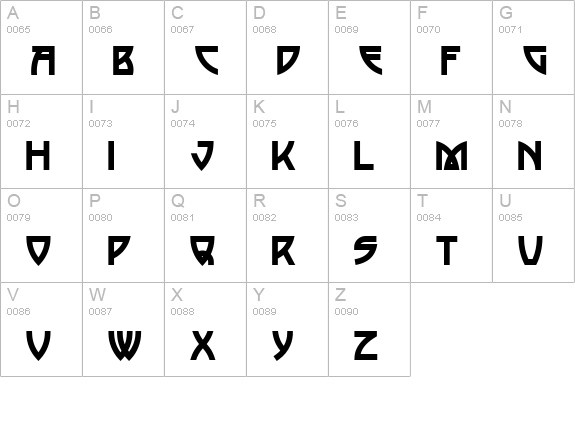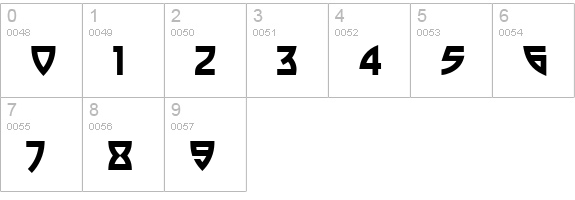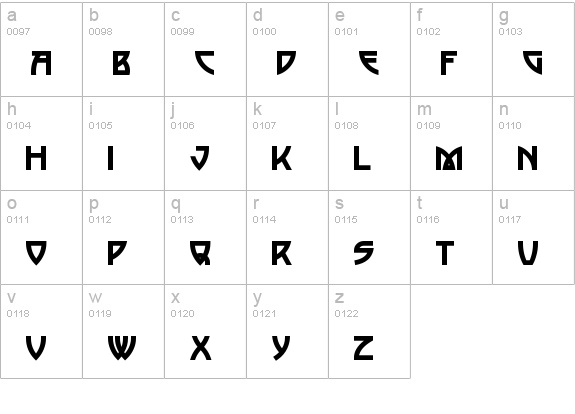
Postmodern One Font Details
Postmodern One font is a unique and innovative typeface that embodies the essence of postmodern design principles. With its bold and striking letterforms, this font is sure to make a statement in any creative project. The juxtaposition of different styles and elements creates a dynamic and visually engaging look that is perfect for modern graphic design. What sets Postmodern One font apart is its versatility – it can be used for a wide range of design projects, from branding and advertising to editorial and web design. Whether you're looking to add a touch of sophistication to your next project or make a bold statement, this font has you covered. And the best part? Postmodern One font is completely free to download at FontsMarket.com. So go ahead and elevate your designs with this contemporary and eye-catching typeface today!